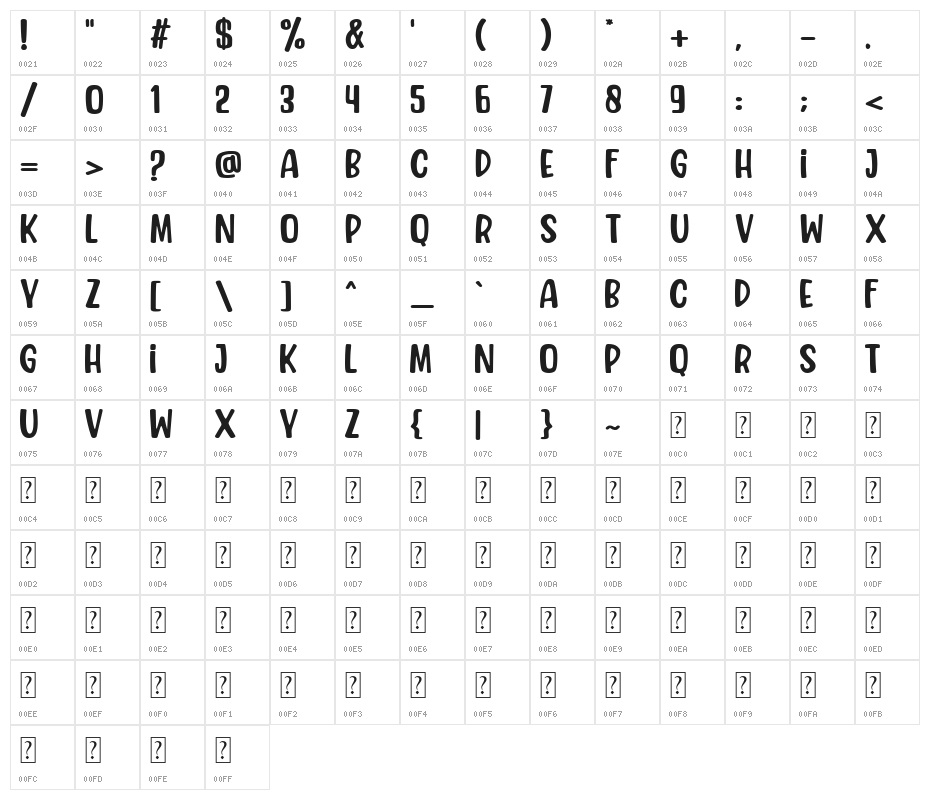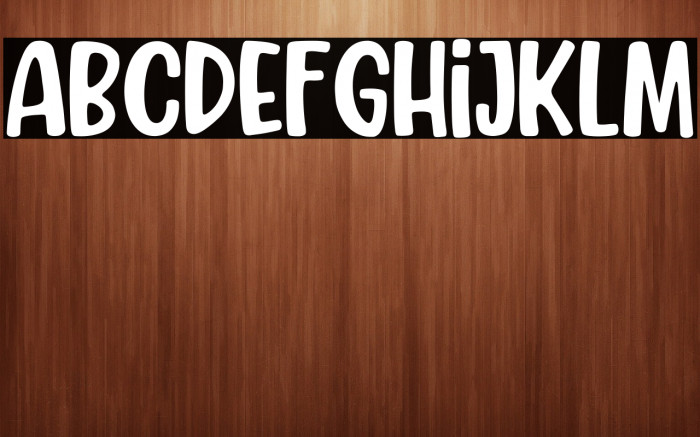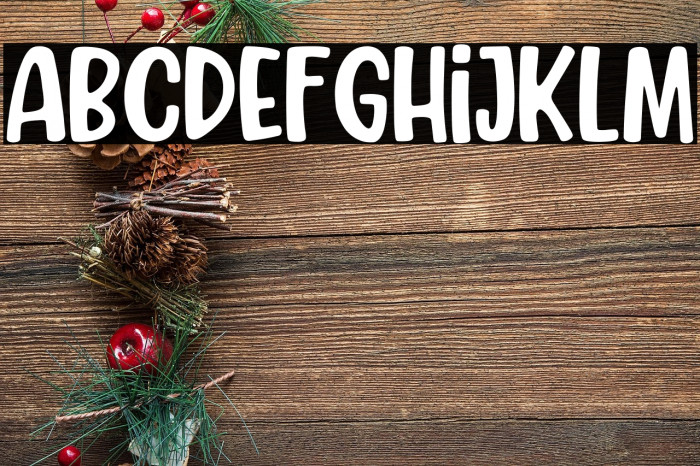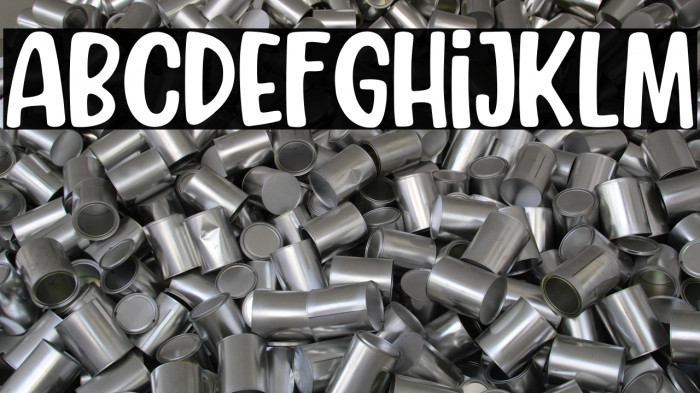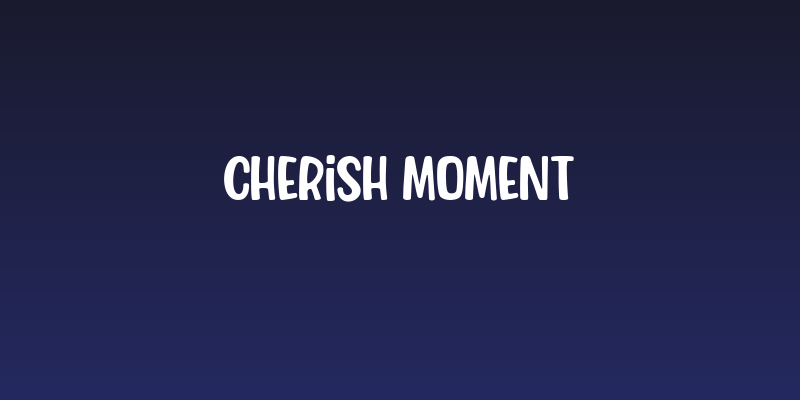
Cherish Moment Font
Cherish Moment Description
This font features a playful and bold style with rounded edges and a hand-drawn appearance. The uppercase and lowercase letters maintain a consistent thickness, giving it a cohesive look. The numbers and special characters follow the same design principles, ensuring uniformity across all elements. The font's overall aesthetic is friendly and approachable, making it ideal for projects that require a personal touch. Its boldness ensures readability, while the rounded forms add a touch of whimsy. This font is perfect for creative projects that aim to convey warmth and friendliness.
| Proposed Projects | Ideal for children's books, greeting cards, playful branding, and social media graphics. |